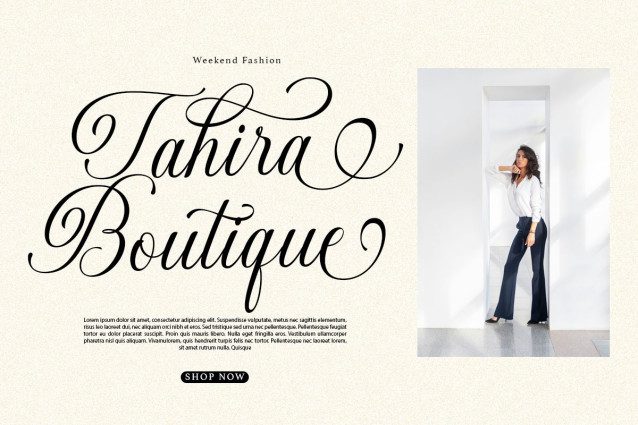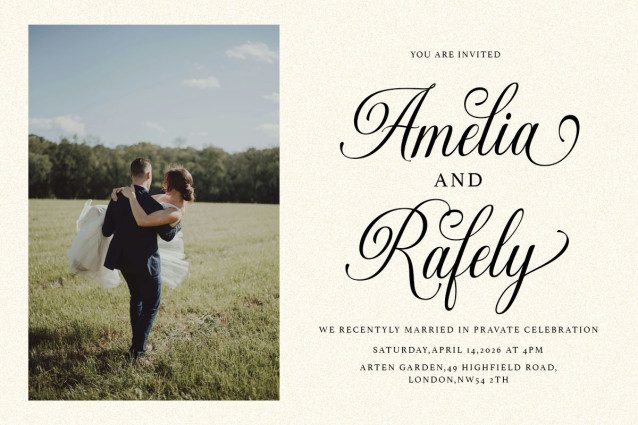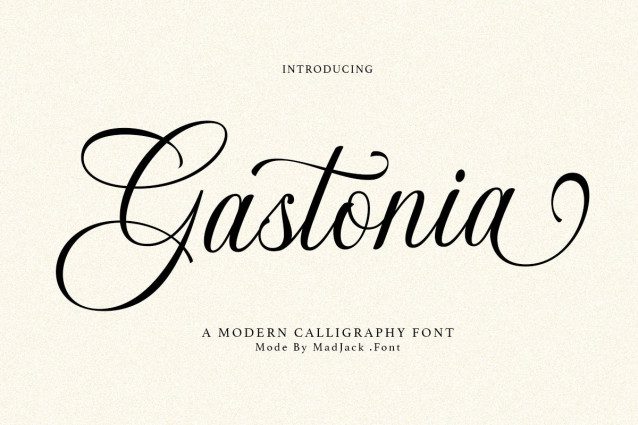
Gastonia Script Font is appealing because it’s sleek, clean, feminine, sensual, glamorous, simple, and highly legible, thanks to its many luxurious letter connections. I also offer a number of stylish alternatives for some of the letters. Its classic style is perfect for various formal applications such as invitations, labels, restaurant menus, logos, fashion, makeup, stationery, novels, magazines, books, greeting/wedding cards, packaging, labels, or any kind of advertising needs.